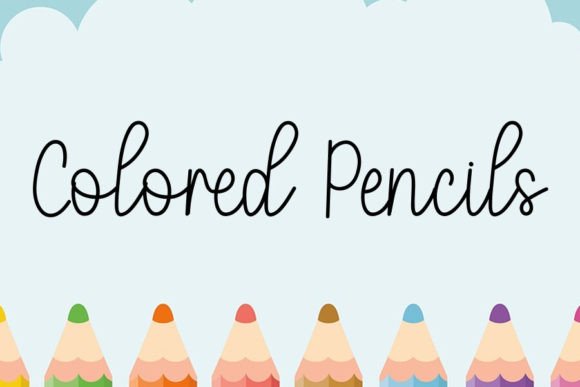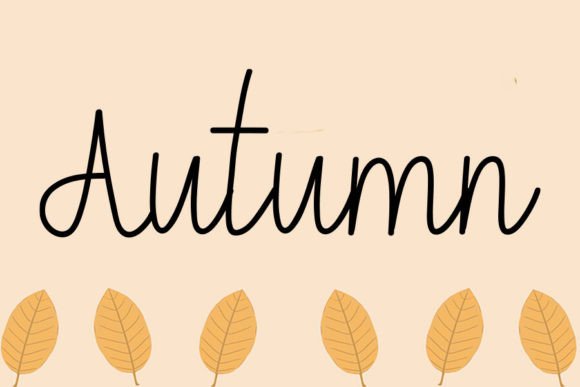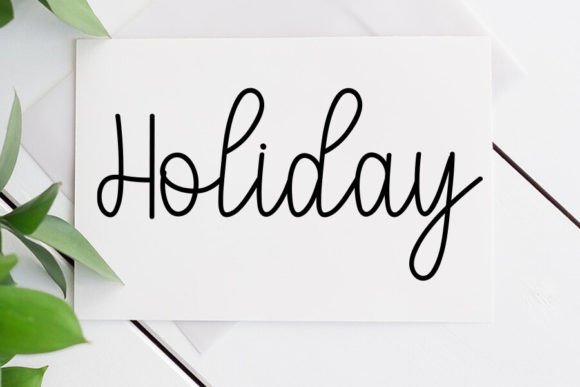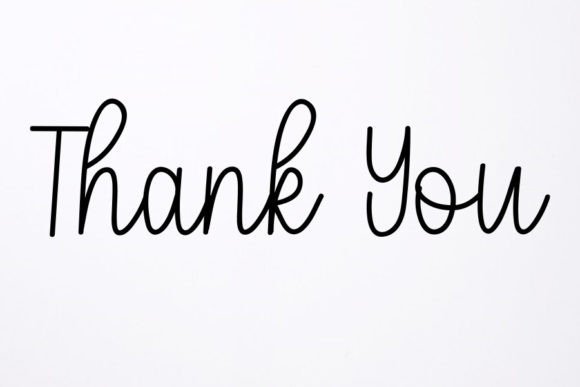
Biscuit Font: Elevate Your Designs with Elegance and Personality
In the world of typography, a well-crafted font can make all the difference in elevating your designs from ordinary to extraordinary. Introducing Biscuit Font, a modern and charming handwritten font that exudes elegance and personality. With its graceful, flowing strokes and sophisticated character, Biscuit is perfect for upscale invitations, personal branding, and chic editorial designs.
The Charm of Biscuit Font
Biscuit Font is a beautifully designed font that boasts a unique and captivating charm. Its handwritten style is reminiscent of elegant cursive writing, with flowing strokes that dance across the page. The font’s sophisticated character makes it ideal for designs that require a touch of refinement and luxury. Whether you’re creating wedding invitations, branding materials, or editorial content, Biscuit Font is sure to impress.
Key Features of Biscuit Font
- Modern and Charming: Biscuit Font is a fresh take on traditional handwritten fonts, with a modern twist that makes it perfect for contemporary designs.
- Elegant and Sophisticated: The font’s flowing strokes and refined character make it ideal for upscale designs that require a touch of luxury.
- Handwritten Style: Biscuit Font boasts a beautiful, handwritten style that adds a personal touch to any design.
- Versatile: The font is perfect for a wide range of design applications, from invitations and branding to editorial content and more.
Using Biscuit Font in Your Designs
- Wedding Invitations: Add a touch of elegance and sophistication to your wedding invitations with Biscuit Font.
- Personal Branding: Use Biscuit Font to create a luxurious and refined brand identity that sets you apart from the competition.
- Editorial Designs: Elevate your editorial content with the refined allure and warmth of Biscuit Font.
- Stationery and Packaging: Add a touch of luxury to your stationery and packaging designs with Biscuit Font.
In conclusion, Biscuit Font is a modern and charming handwritten font that exudes elegance and personality. With its graceful, flowing strokes and sophisticated character, it’s perfect for upscale invitations, personal branding, and chic editorial designs. Whether you’re a designer, craft, or DIY enthusiast, Biscuit Font is sure to elevate your projects and add a touch of luxury to your designs.